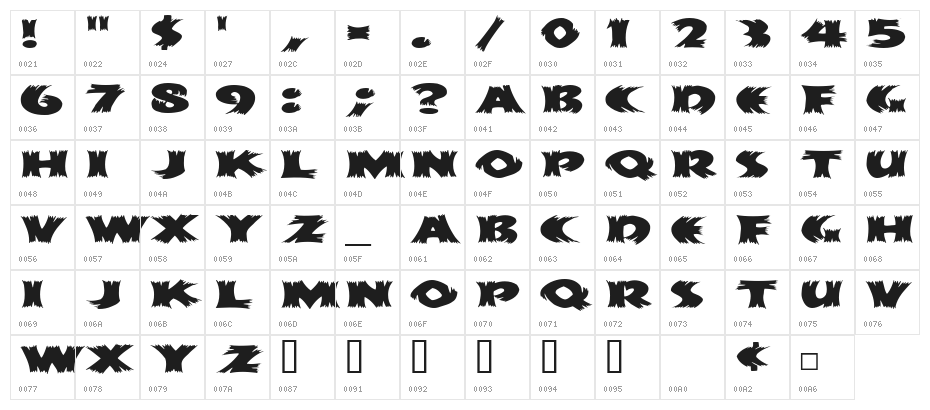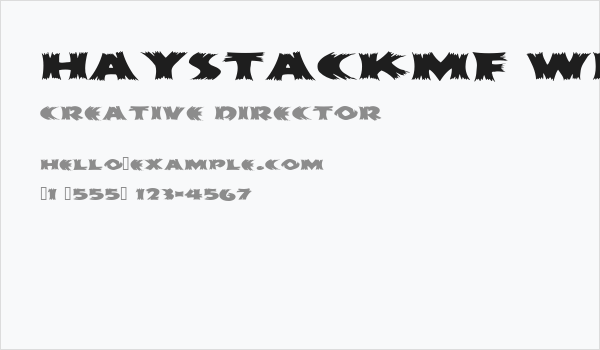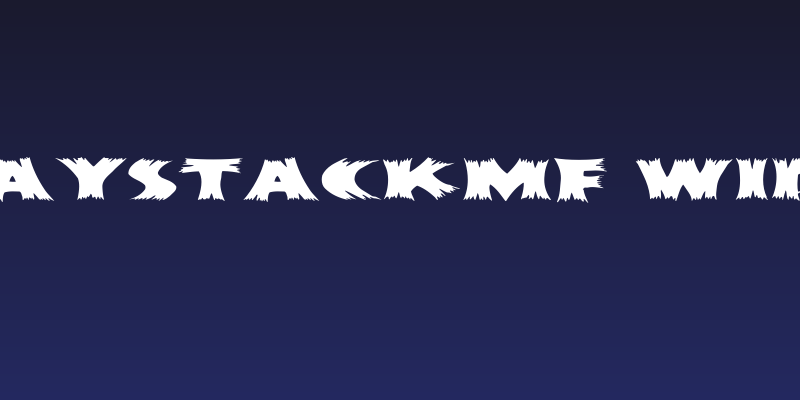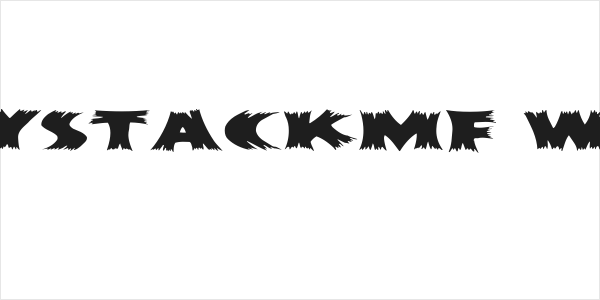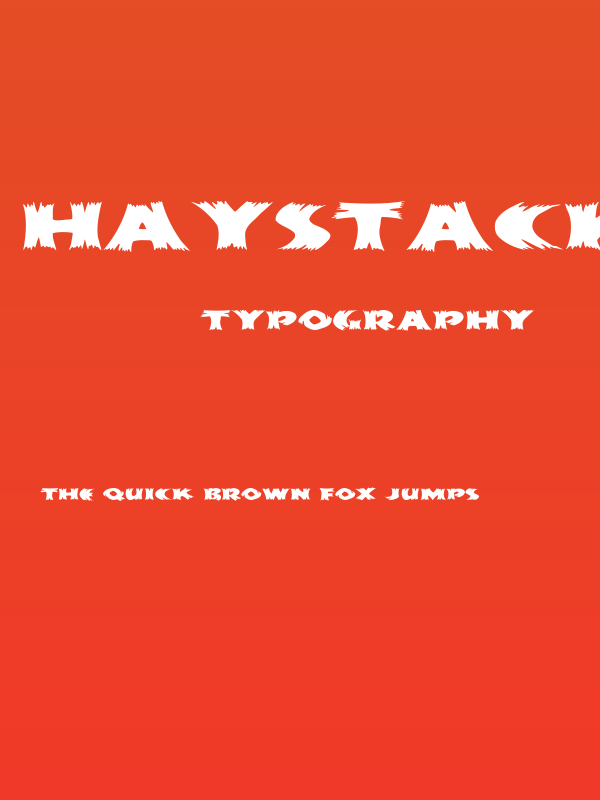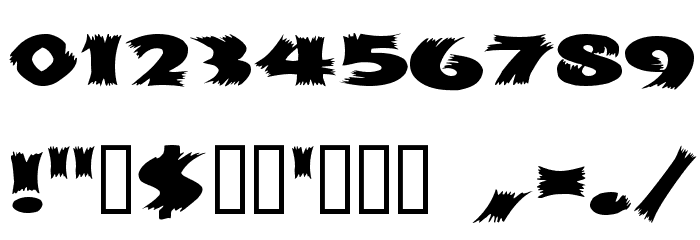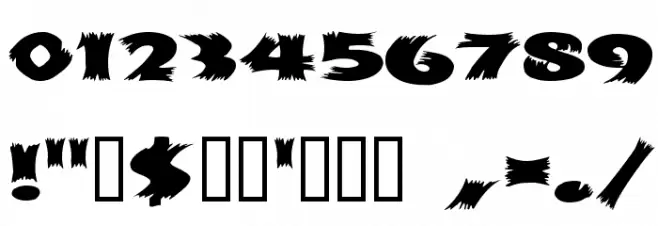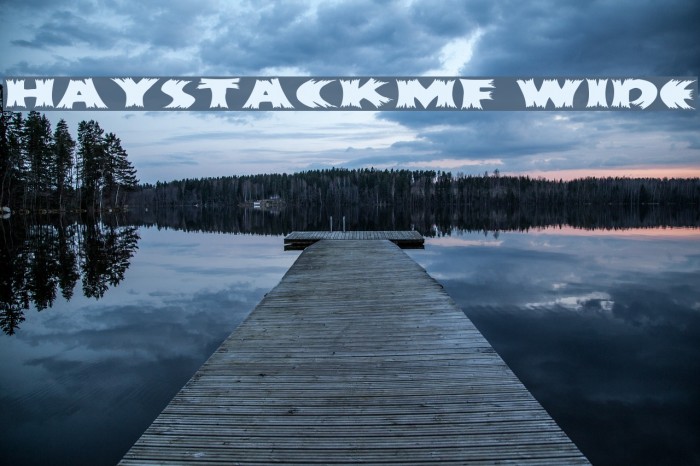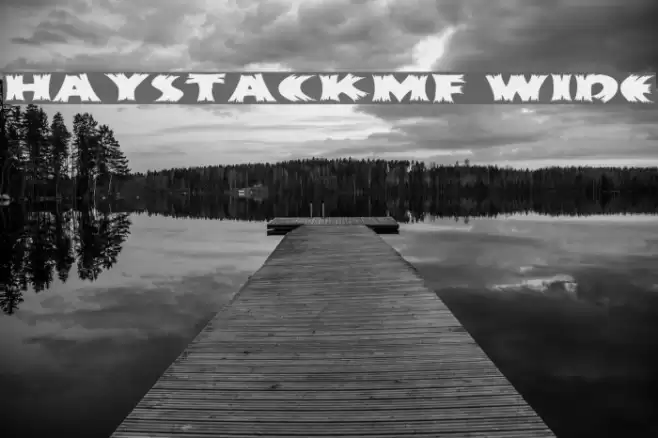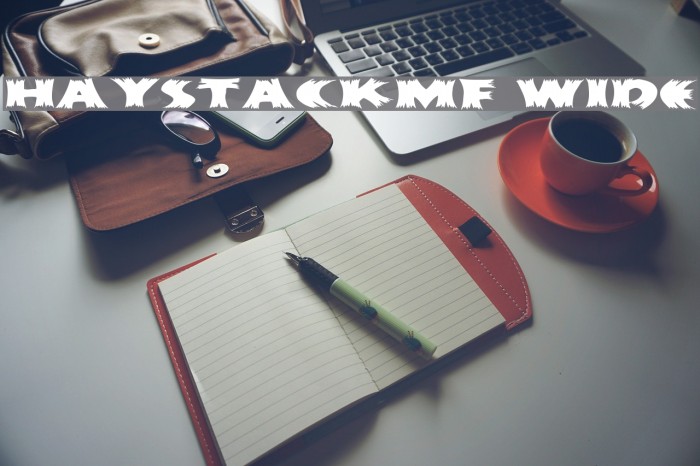
HayStackMF Wide Font
HayStackMF Wide Description
This font features a bold and dynamic design with jagged, irregular edges that give it a wild, energetic appearance. The characters are wide and have a strong presence, making them ideal for attention-grabbing designs. The uppercase and lowercase letters maintain a consistent style, with each character exhibiting a unique, distressed texture that resembles torn paper or rough brush strokes. The numerals and special characters follow the same aesthetic, ensuring a cohesive look across all text elements. This font is perfect for projects that require a bold, unconventional style.
| Proposed Projects | Ideal for posters, album covers, event flyers, and any design that needs a bold, eye-catching font. |